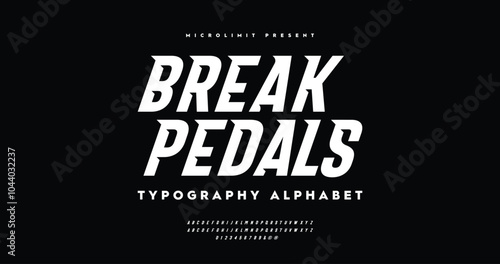
Break Pedals: dynamic, bold font that accelerates any design. Modern Sport Italic Font. Typeface urban style fonts for technology, digital, movie, logo design. Alphabet Collections